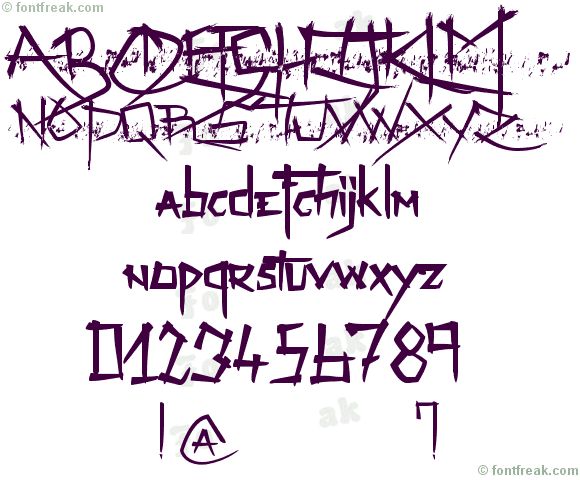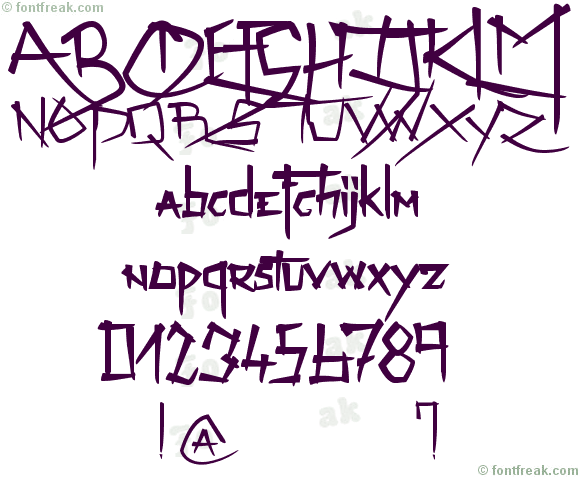
Zenzai Itache
About Zenzai Itache
Zenzai Itache is a striking display font designed by Maelle.K, characterized by its bold and expressive style. This font falls under the decorative category, making it a perfect choice for creative projects that require a unique touch. The strokes exhibit a dynamic weight, showcasing a rough, hand-drawn quality that adds an element of authenticity and playfulness. The contrast between thick and thin lines enhances its visual appeal, while the generous spacing between characters ensures legibility, even in larger sizes.
The Zenzai Itache font offers vast versatility, making it suitable for various applications. It can be effectively used in wedding invitations, where its artistic flair adds a personal touch to the occasion. For movie posters, the font's dramatic presence captures attention and conveys a sense of excitement. Restaurant menus can also benefit from its distinctive look, enticing patrons with a memorable design. Additionally, the font is ideal for social media graphics, providing content creators with a tool to stand out in crowded feeds.
Targeting graphic designers, small business owners, and content creators, Zenzai Itache appeals to those looking to inject personality into their work. Its unique character makes it a valuable asset for anyone aiming to make a lasting impression.
What sets the Zenzai Itache font apart is its ability to blend artistic expression with functionality. The rough edges and bold strokes evoke a sense of creativity, making it perfect for projects that require a bold statement. With its freeware license, the Zenzai Itache font free download allows users to incorporate this exceptional typeface into their designs without any financial barriers. This combination of style and accessibility ensures that Zenzai Itache stands out as a must-have font for modern creatives.